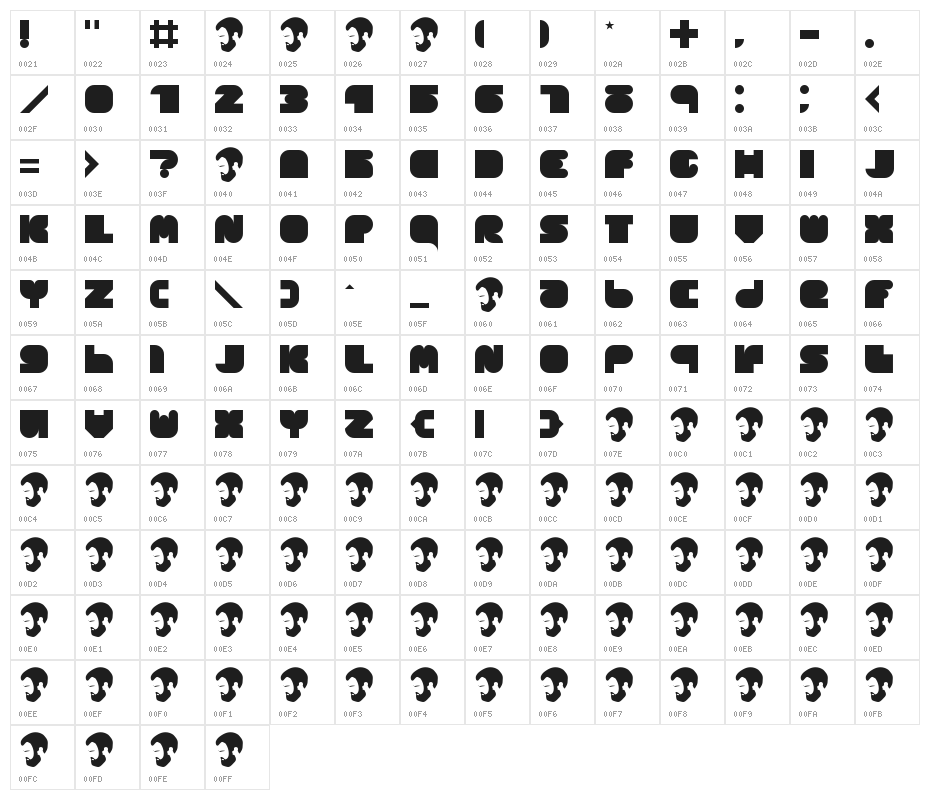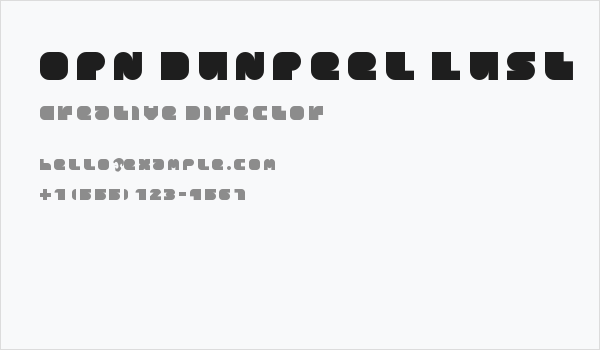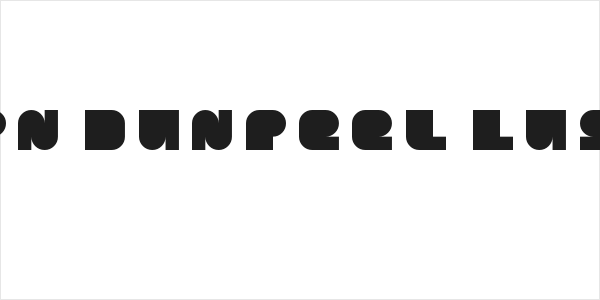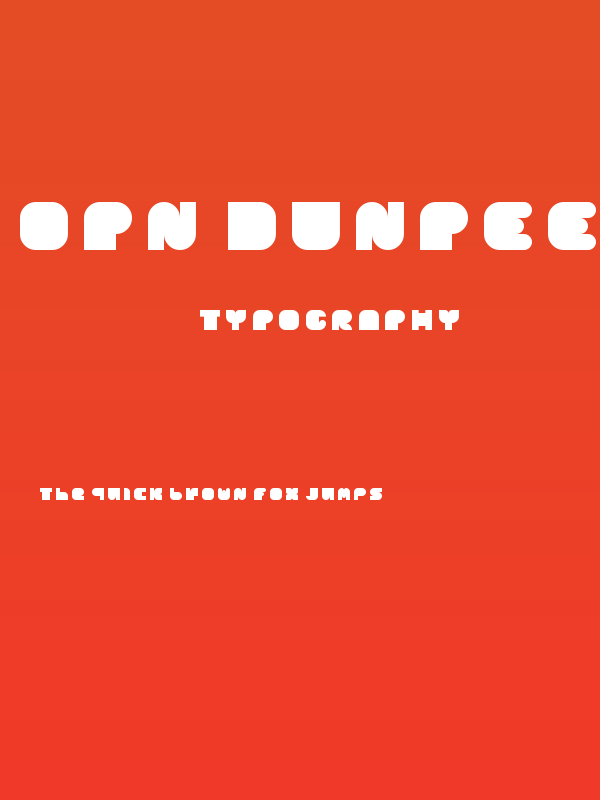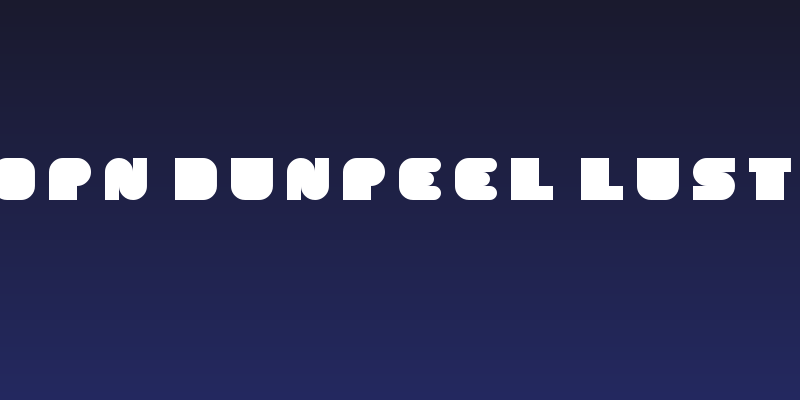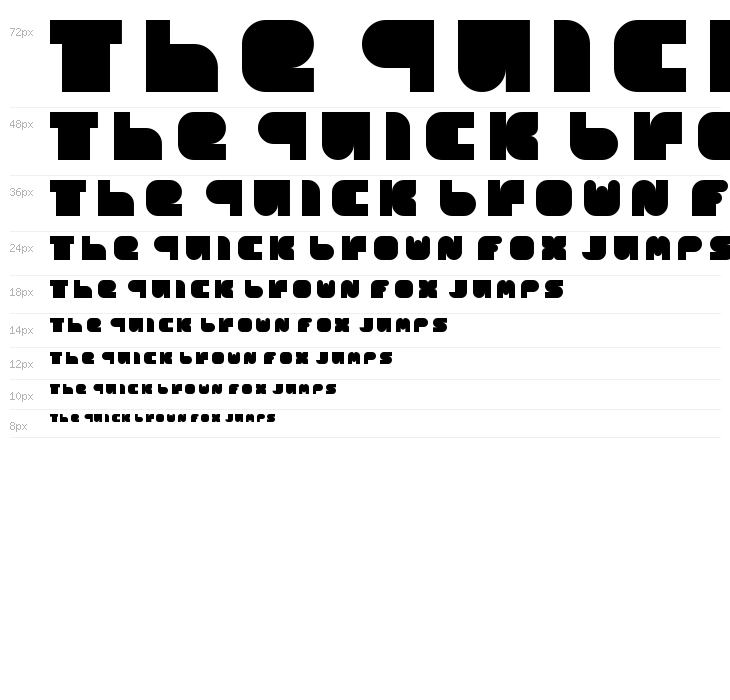
OPN DunPeel Lust Font
OPN DunPeel Lust Description
This font features a bold and geometric style with a strong presence. The characters are constructed with thick, uniform strokes and rounded edges, giving it a modern and futuristic appearance. The uppercase and lowercase letters maintain a consistent weight, enhancing readability while adding a unique flair. The numerals are equally bold, matching the overall aesthetic of the alphabet. Special characters are designed to complement the font's boldness, ensuring a cohesive look across all text elements. This font's distinct style makes it suitable for eye-catching designs.